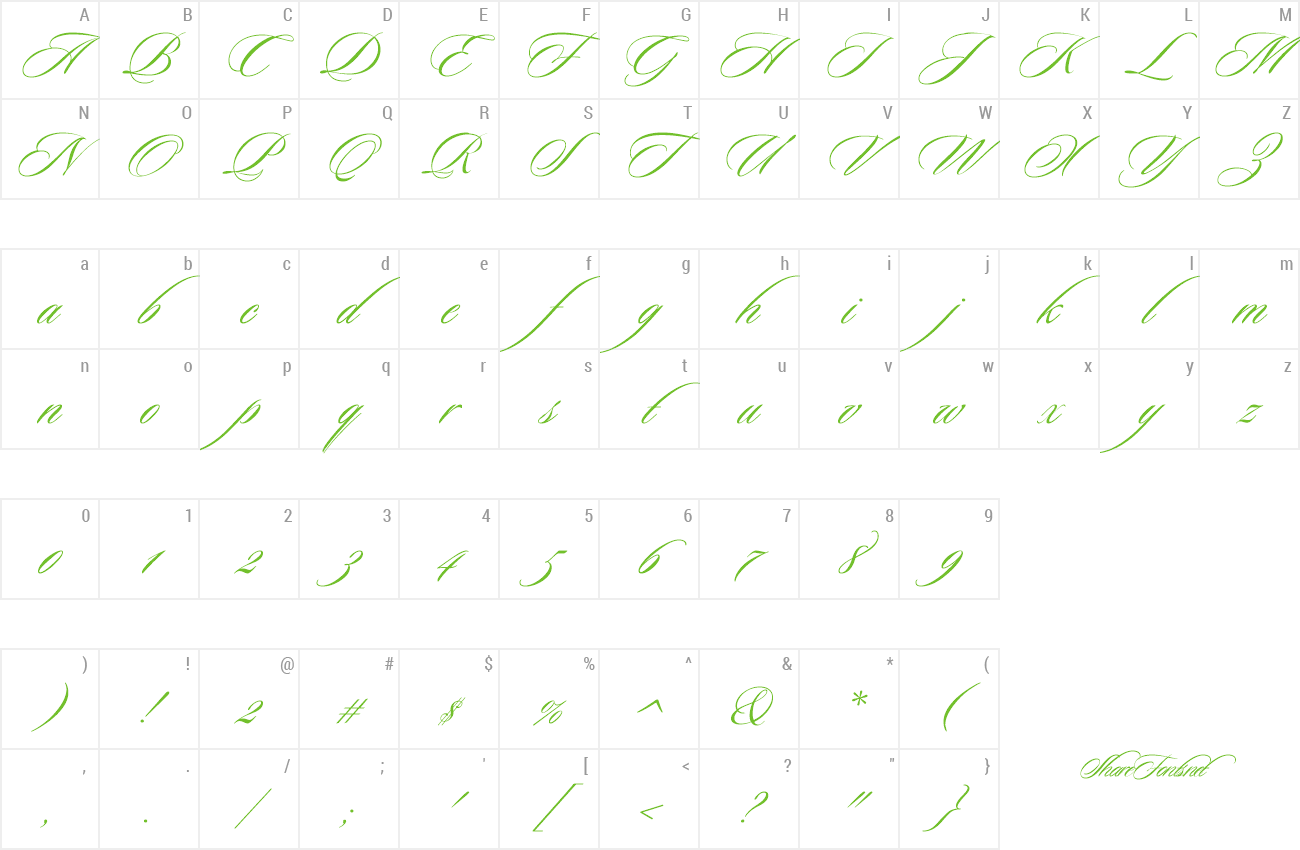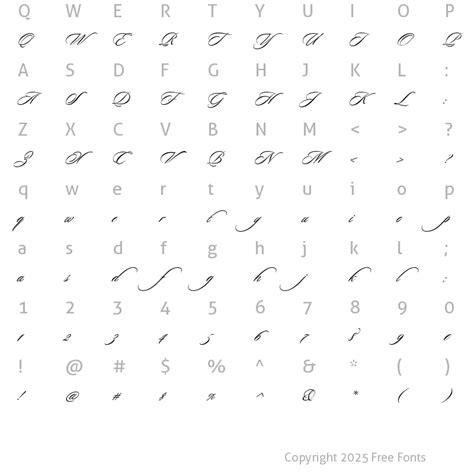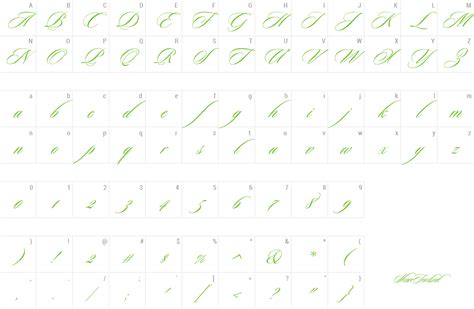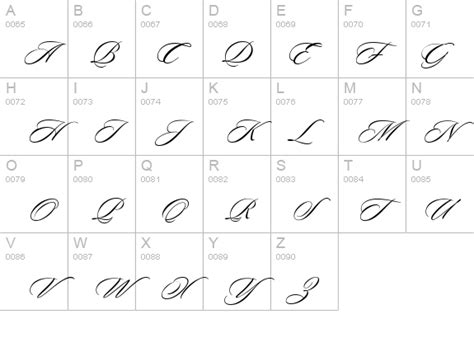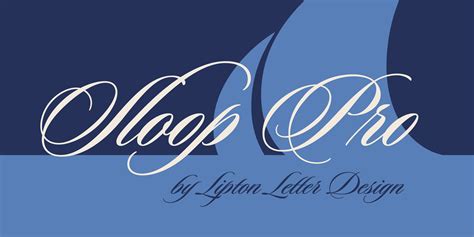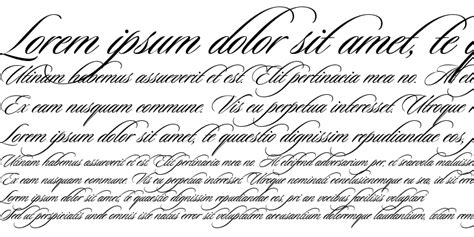
Sloop Script Font
Sloop Script Font - Sloop script pro font family was designed by richard lipton and published by lipton letter design. Web sloop script is a cursive script face designed by richard lipton. Complete family of 3 fonts: 4 users have given the font a rating of 4.75 out of 5. A script typeface with 12 styles, available from adobe fonts for sync and web use. Web individual styles from $29.00. It was originally released in 1994 through font bureau under the name sloop but later. It has been downloaded 2242 times. Web explore sloop script designed by richard lipton at adobe fonts. Web sloop script regular is a regular truetype font.
Web sloop script is a cursive script face designed by richard lipton. Complete family of 3 fonts: You can find more information about. Sloop script pro font family was designed by richard lipton and published by lipton letter design. It was originally released in 1994 through font bureau under the name sloop but later. It has been downloaded 2242 times. Web individual styles from $29.00. Web sloop offers the adventurous typographer wide choices of variant forms in three weights of a classically elegant script. Web sloop script regular is a regular truetype font. 4 users have given the font a rating of 4.75 out of 5.
It has been downloaded 2242 times. It was originally released in 1994 through font bureau under the name sloop but later. Web explore sloop script designed by richard lipton at adobe fonts. A script typeface with 12 styles, available from adobe fonts for sync and web use. Web sloop script regular is a regular truetype font. Web sloop script is a cursive script face designed by richard lipton. 4 users have given the font a rating of 4.75 out of 5. Complete family of 3 fonts: Web sloop offers the adventurous typographer wide choices of variant forms in three weights of a classically elegant script. Sloop script pro font family was designed by richard lipton and published by lipton letter design.
Web sloop script is a cursive script face designed by richard lipton. Web individual styles from $29.00. 4 users have given the font a rating of 4.75 out of 5. A script typeface with 12 styles, available from adobe fonts for sync and web use. Web sloop script regular is a regular truetype font.
Complete family of 3 fonts: Web sloop offers the adventurous typographer wide choices of variant forms in three weights of a classically elegant script. Web individual styles from $29.00. A script typeface with 12 styles, available from adobe fonts for sync and web use. Web sloop script is a cursive script face designed by richard lipton.
Richard lipton suggests setting text. Web sloop script regular is a regular truetype font. You can find more information about. Sloop script pro font family was designed by richard lipton and published by lipton letter design. Web sloop script is a cursive script face designed by richard lipton.
Web sloop script is a cursive script face designed by richard lipton. A script typeface with 12 styles, available from adobe fonts for sync and web use. 4 users have given the font a rating of 4.75 out of 5. Complete family of 3 fonts: You can find more information about.
Web individual styles from $29.00. Sloop script pro font family was designed by richard lipton and published by lipton letter design. Web sloop offers the adventurous typographer wide choices of variant forms in three weights of a classically elegant script. Web explore sloop script designed by richard lipton at adobe fonts. Web sloop script is a cursive script face designed.
You can find more information about. 4 users have given the font a rating of 4.75 out of 5. Web individual styles from $29.00. Web sloop script is a cursive script face designed by richard lipton. A script typeface with 12 styles, available from adobe fonts for sync and web use.
Sloop script pro font family was designed by richard lipton and published by lipton letter design. Web explore sloop script designed by richard lipton at adobe fonts. Complete family of 3 fonts: Web individual styles from $29.00. 4 users have given the font a rating of 4.75 out of 5.
Sloop script pro font family was designed by richard lipton and published by lipton letter design. It has been downloaded 2242 times. Web explore sloop script designed by richard lipton at adobe fonts. Web sloop offers the adventurous typographer wide choices of variant forms in three weights of a classically elegant script. Richard lipton suggests setting text.
Web individual styles from $29.00. A script typeface with 12 styles, available from adobe fonts for sync and web use. Web sloop script regular is a regular truetype font. Web sloop script is a cursive script face designed by richard lipton. Web sloop offers the adventurous typographer wide choices of variant forms in three weights of a classically elegant script.
4 users have given the font a rating of 4.75 out of 5. Web individual styles from $29.00. Web sloop script is a cursive script face designed by richard lipton. Richard lipton suggests setting text. Sloop script pro font family was designed by richard lipton and published by lipton letter design.
Web sloop script regular is a regular truetype font. It was originally released in 1994 through font bureau under the name sloop but later. Complete family of 3 fonts: Web sloop script is a cursive script face designed by richard lipton.
It has been downloaded 2242 times. Web sloop offers the adventurous typographer wide choices of variant forms in three weights of a classically elegant script.